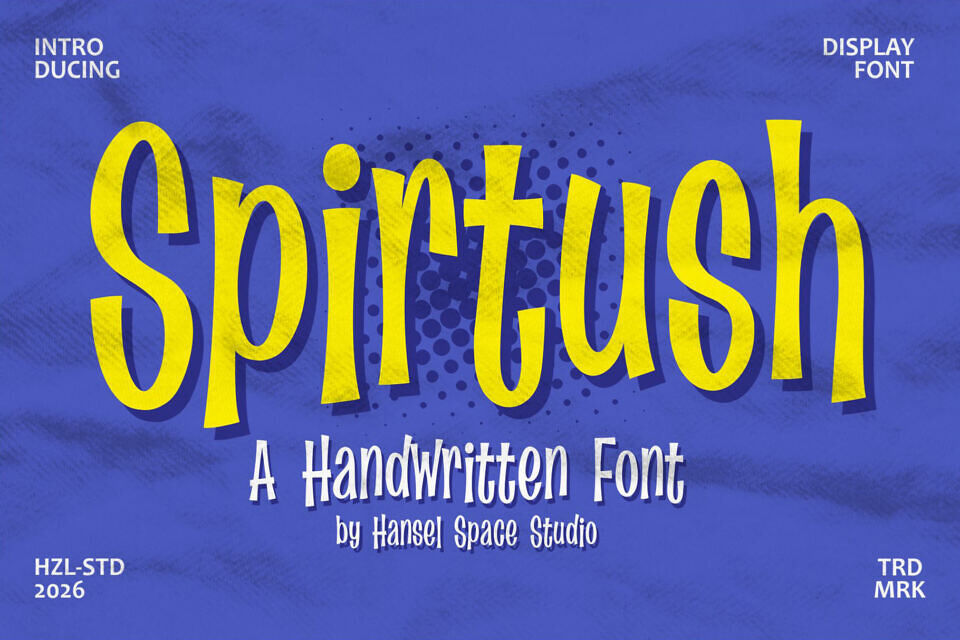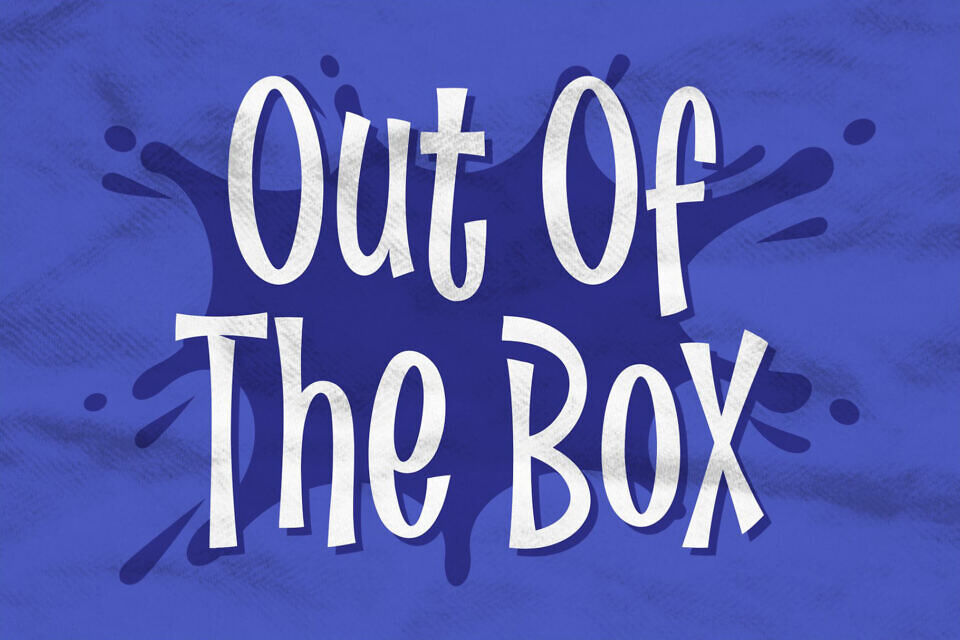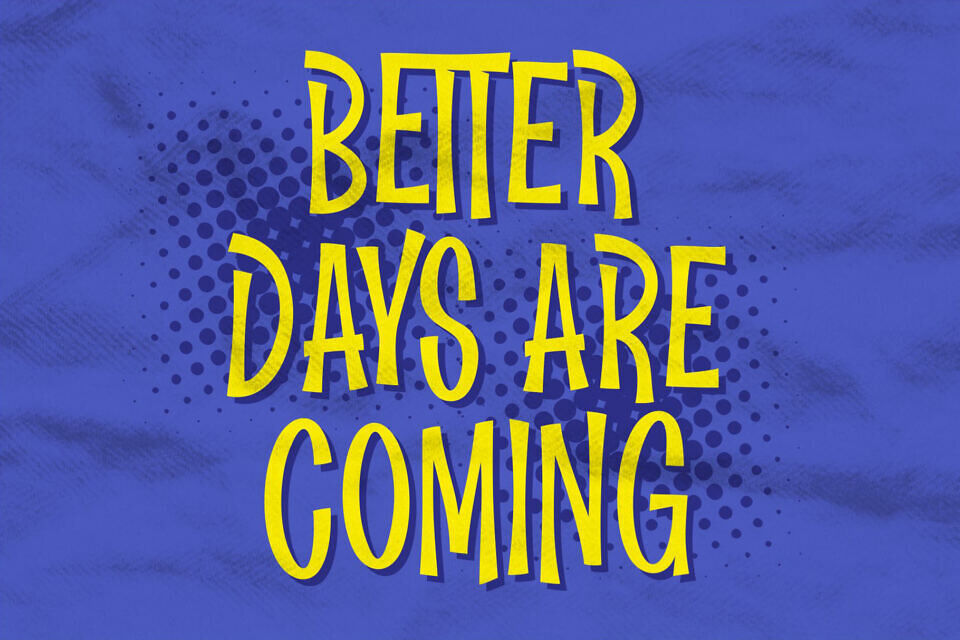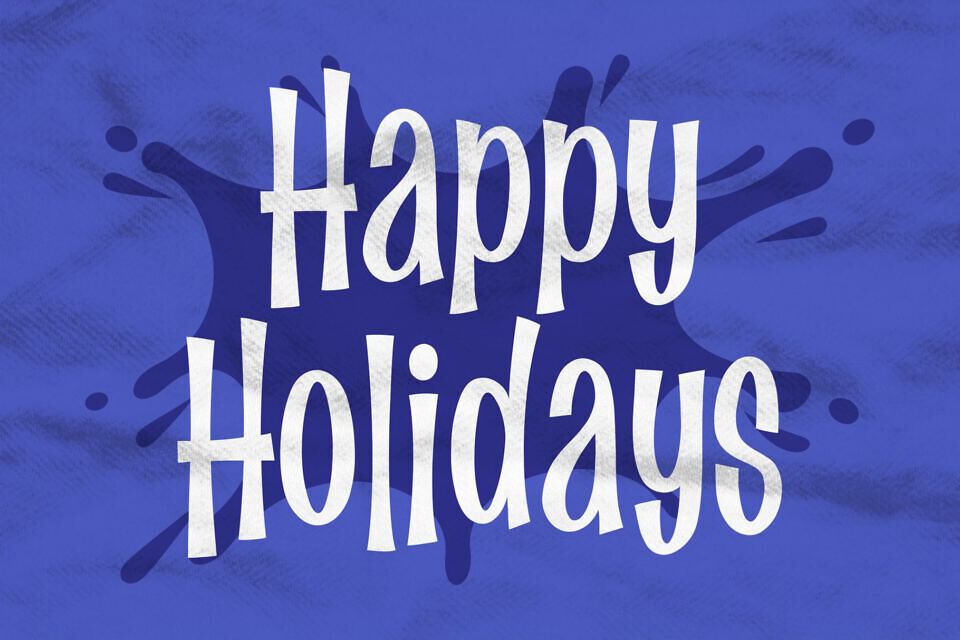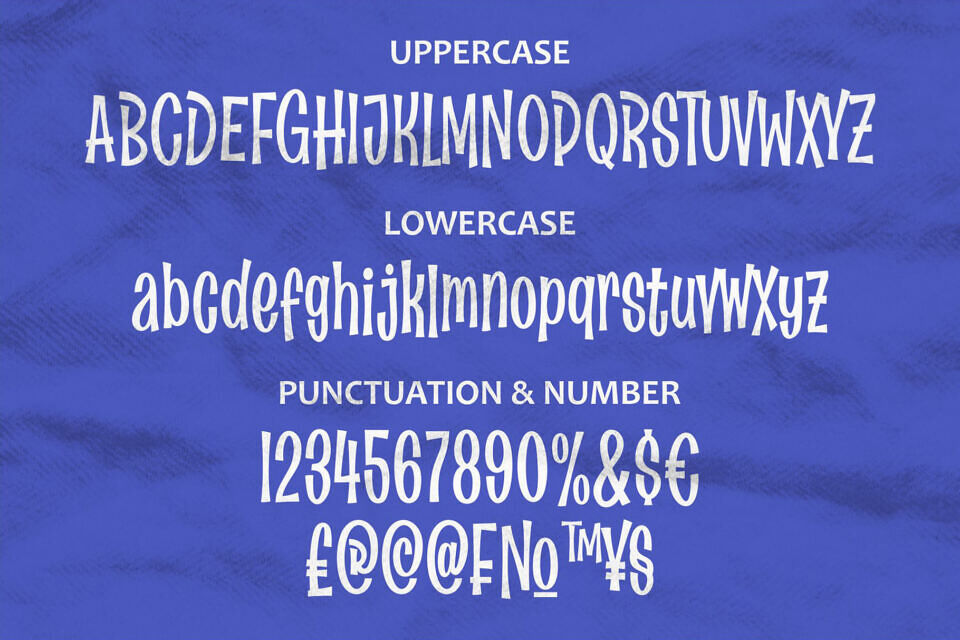
Spirtush Font
Spirtush, a handwritten display font by Hansel Space Studio, delivers a playful, energetic aesthetic. Featuring tall, condensed characters with a whimsical, hand-drawn feel, this typeface is ideal for headlines, posters, and social media graphics.
Its quirky, irregular strokes add authentic personality to projects like greeting cards or creative branding. The full set includes uppercase, lowercase, numbers, and symbols. Elevate your work with Spirtush—the perfect choice for a bold, casual, and spirited look that truly stands out.